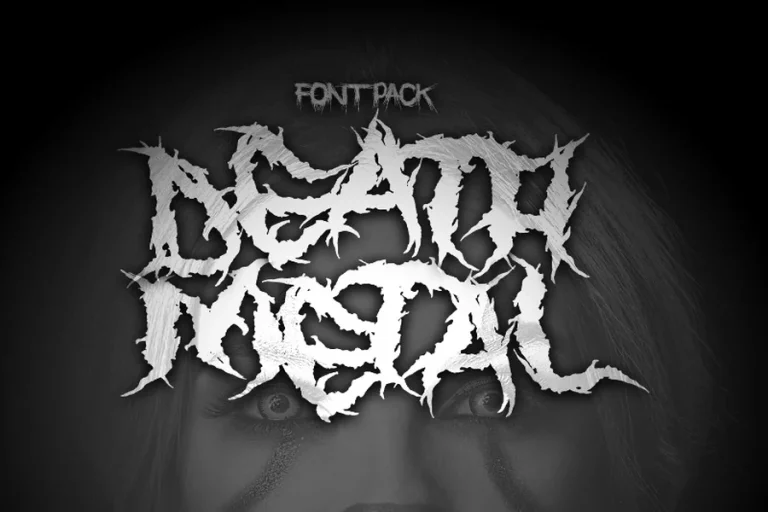
Death Metal Font Generator for Dark Creative Designs
The death metal font generator is more than a design tool. It is a gateway into a world of extreme expression. When people see these letters they feel intensity rebellion and raw emotion. The shapes twist. The lines stretch. The words become something wild and powerful.
Typography in death metal culture is not meant to be gentle. It is meant to challenge the viewer. A death metal font generator helps creators build that visual voice. It transforms normal text into something fierce and unforgettable.
Using a death metal font generator allows designers musicians and fans to create strong visual identities without needing advanced design skills. It opens the door to creative freedom.
The Origins and Meaning Behind Death Metal Typography
Death metal typography emerged with the music itself. In the late twentieth century bands began pushing boundaries of sound and art. Their visuals followed the same path. Album covers posters and band logos became dark complex and intense. The letters were often sharp chaotic and abstract. They reflected themes of darkness power struggle and emotion. Many early logos were drawn by hand with ink and pen. Each one felt unique.
As the scene grew these styles became recognizable. The tangled shapes and extreme forms became symbols of the genre. Fans could identify a band by its logo even if they could not read the letters clearly.
When digital design tools became available artists started converting these hand drawn styles into usable fonts. Over time the death metal font generator was created. It allowed users to generate similar effects instantly. This tool preserves the spirit of the original art while making it accessible to modern creators.
Why Creators Use Death Metal Font Generator
Creators use death metal font generator because it saves time and delivers powerful results. With a few clicks plain text becomes aggressive and dramatic. Musicians use it to design band logos album titles and merchandise. The generator helps them maintain a consistent visual identity.
Graphic designers use it for posters flyers covers and digital content. The strong style attracts attention and sets the mood immediately.
Fans use it for personal art social media graphics and custom designs. It allows them to participate in the culture creatively. Another reason for its popularity is experimentation. Users can test many styles quickly. They can explore sharp twisted gothic or chaotic forms. Each variation tells a different story. The generator gives everyone the power to create extreme typography without limits.
How Death Metal Font Generator Is Used in Modern Design
The death metal font generator appears in many creative fields. Music remains the primary space. Band branding heavily relies on these fonts. From logos to stage banners the generator helps shape the visual world of metal. Merchandise design uses these fonts on shirts hoodies posters and stickers. The bold lettering becomes wearable identity.
In digital media the generator is used for video thumbnails streaming covers and promotional graphics. It ensures content stands out in crowded platforms. Event promotions for concerts festivals and underground shows depend on these fonts to communicate mood and excitement.
Even outside music some horror and fantasy creators use death metal font generator for book covers game titles and movie posters. The dark aesthetic fits perfectly with those themes. The tool continues to expand into new creative spaces.
The Future of Death Metal Font Generator in Creative Culture
The future of death metal font generator is strong. As digital creativity grows the demand for unique typography increases. People want visuals that feel bold and personal. New generators offer more control and variation. Users can adjust thickness chaos sharpness and structure. This allows deeper artistic expression. Animation and motion design will bring these fonts to life. Moving letters that twist and grow will create even more impact.
As underground culture influences mainstream design death metal typography will continue to inspire new forms of visual art. The generator will remain a bridge between tradition and technology. It preserves the roots of the genre while embracing modern creativity.
Final Thoughts on Death Metal Font Generator
The death metal font generator is not just software. It is a creative force. It gives voice to extreme emotion and artistic freedom. Every design created with it carries energy and identity. It transforms words into experiences. For musicians designers and fans this tool opens endless possibilities. It keeps the spirit of death metal alive in every letter.